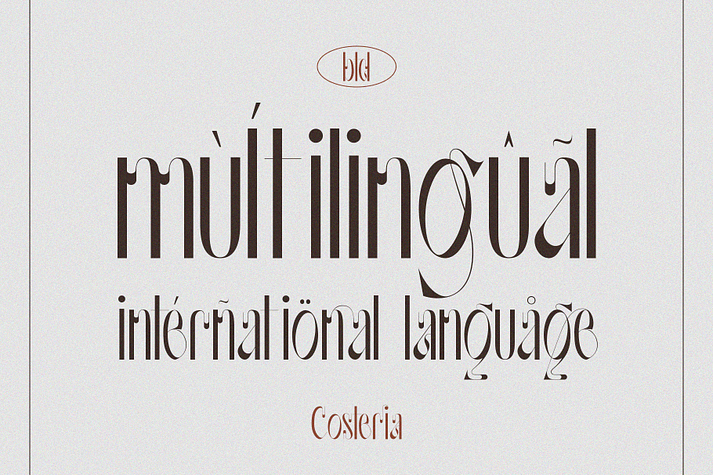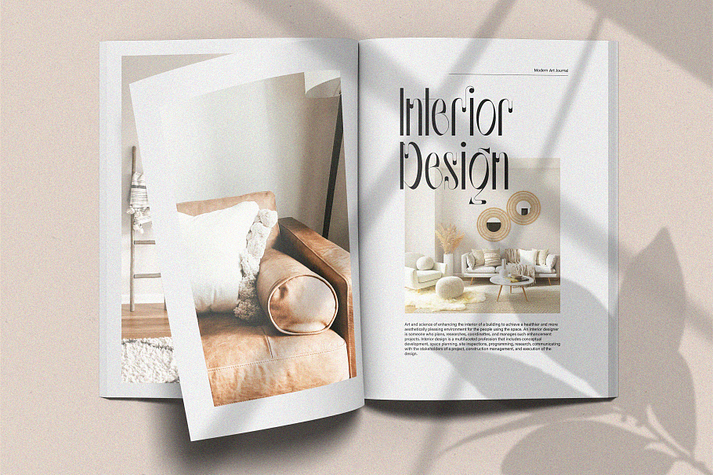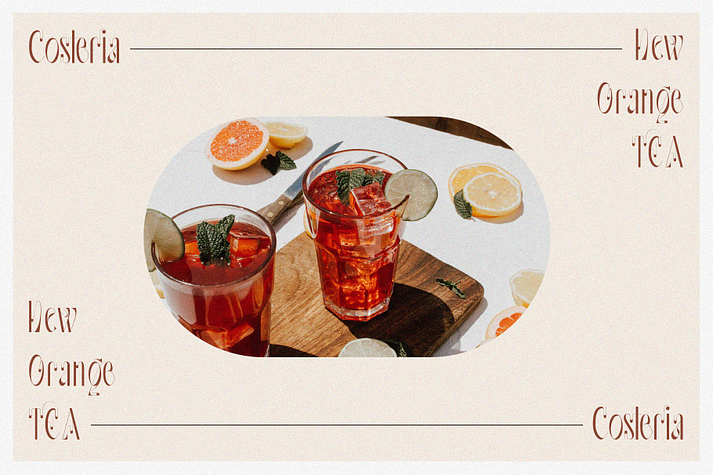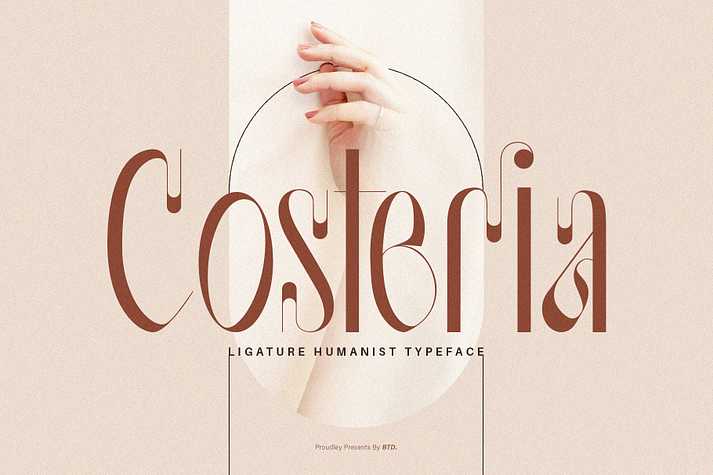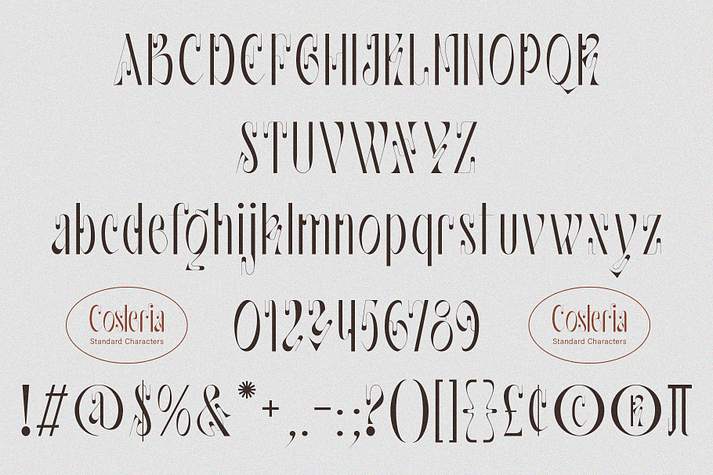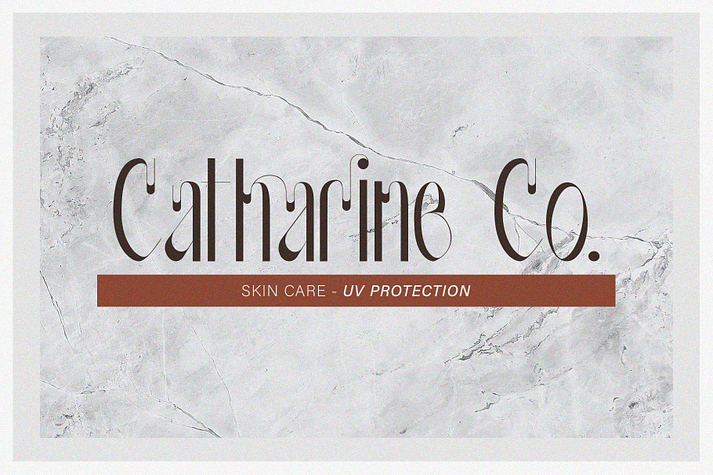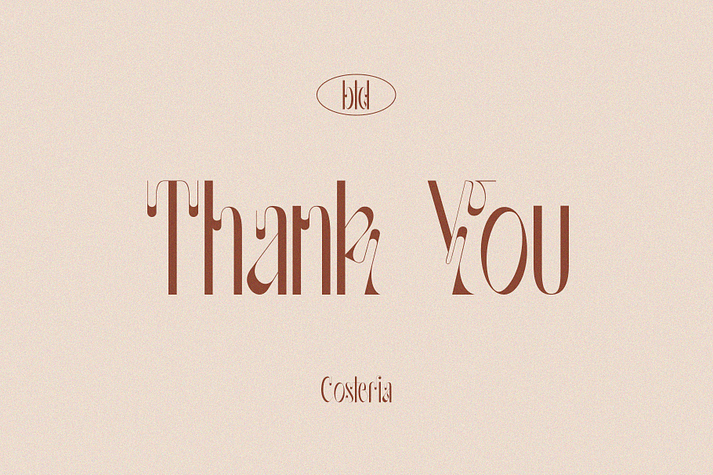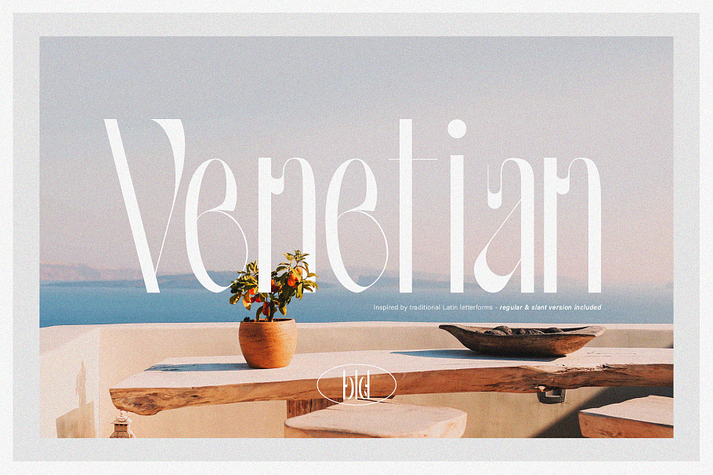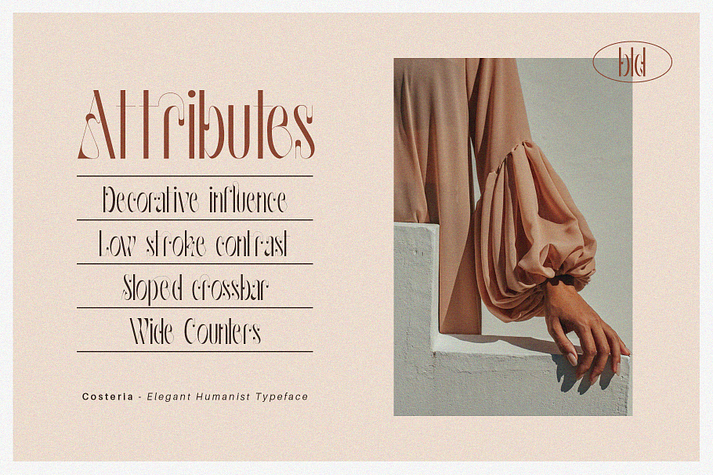
Costeria
Costeria is a font family published by Burntilldead.
Introducing Costeria, a humanist ligature display font with elegant style. It’s an easy & perfect choice to make your design projects; logo, branding, invitation, social media ads & website have classy looks, just type and add this font….ta daaa! you will be surprise with the result.
Fun to do! this font powered with ligatures that automatically change some of your characters into new form if they type together, magic! It also came with alternate characters to make everything more blended.
Costeria Features:
• Multilanguage
• Alternates
• Ligatures